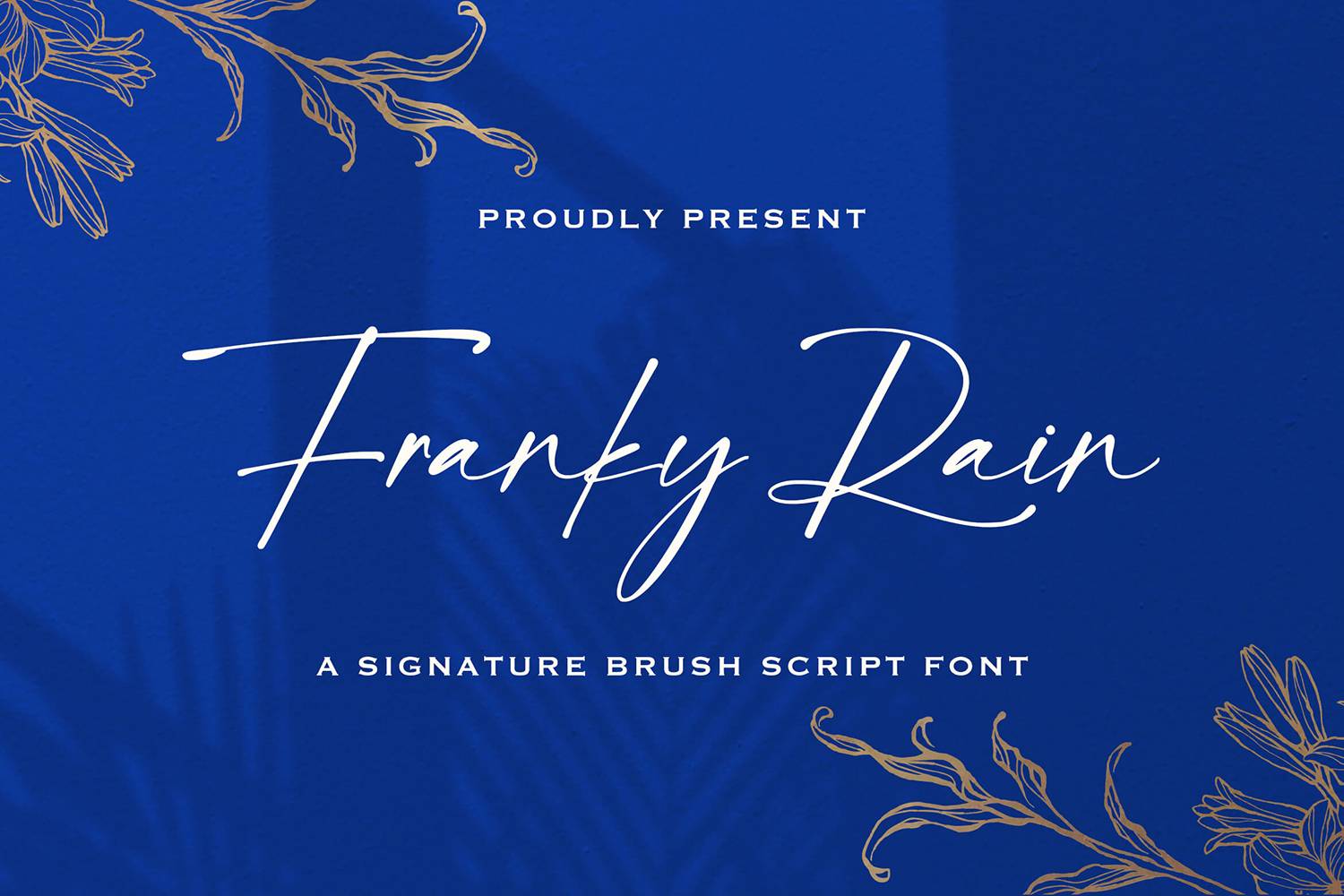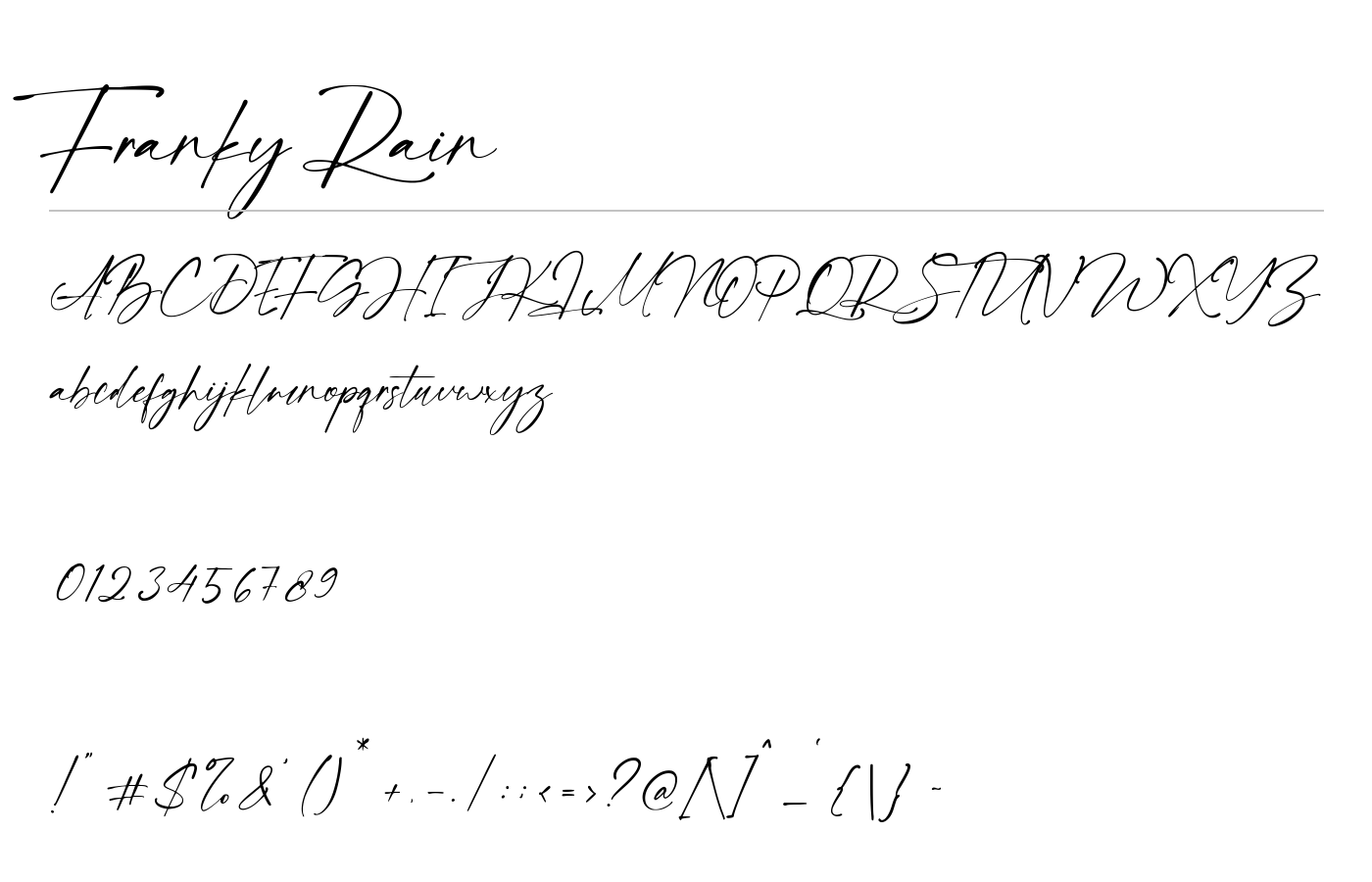
Franky Rain is a delicate, handwritten script font characterized by its thin, flowing strokes and elegant, slightly irregular letterforms that evoke a personal, artistic touch. Its light weight and airy spacing give it a graceful, romantic feel ideal for invitations, branding, and creative projects seeking a sophisticated yet approachable style. This font works beautifully in designs that want to convey warmth, creativity, and a refined human touch.
Franky Rain Font
About Franky Rain Font